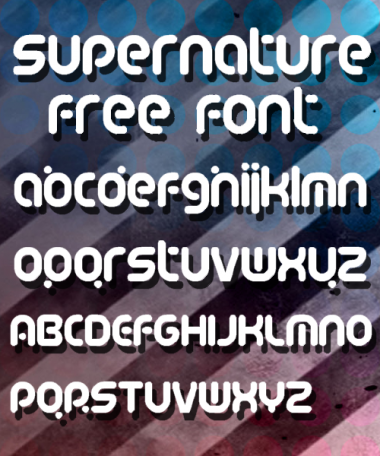
Supernature
V. Sarela (Yautja)
I like those minimal ascenders/descenders. 10/10
Great, less is more!
Nice Job! I like it but it took me a second to get used to the Q R b d h p q and other letters with dots in them. ツ
Love this font! :D x